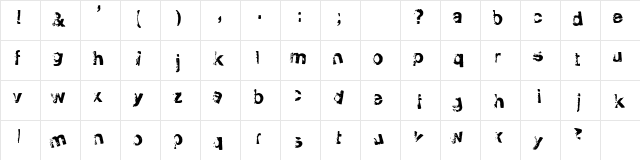
Smellvetica Regular Free Font
Smellvetica Regular
Design Context for Smellvetica
Smellvetica is a composed and adaptable typeface that performs quietly and consistently across a wide range of design contexts.